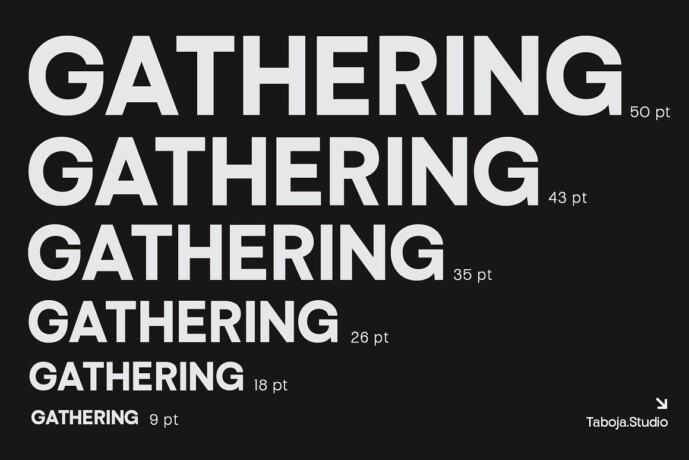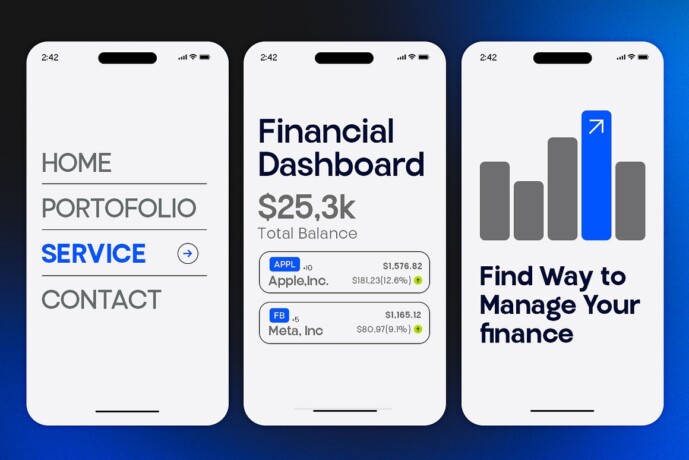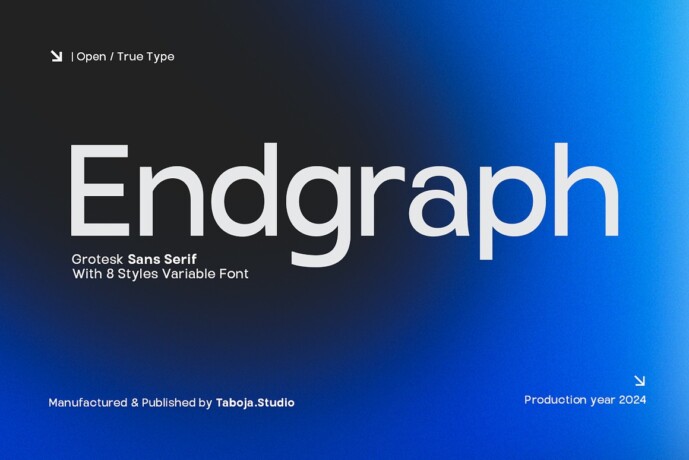
Endgraph Font Family
Designer: Taboja Studio
Endgraph Font Family a sleek and modern sans serif font family that perfectly blends geometric precision with grotesque warmth. With 8 versatile weights, from Thin to Extra Bold, TBJ Endgraph is designed to fit seamlessly into any project, whether it’s a logo, website, or print material. Its clean lines and balanced shapes make it a reliable choice for designers seeking both style and readability.
Each weight of TBJ Endgraph adapts effortlessly to various design needs, ensuring a consistent and professional look across all your creative works. From bold headlines to detailed body text, this font family provides the flexibility and elegance you need. Give your projects a contemporary edge with TBJ Endgraph, a font family that’s as flexible as it is attractive.